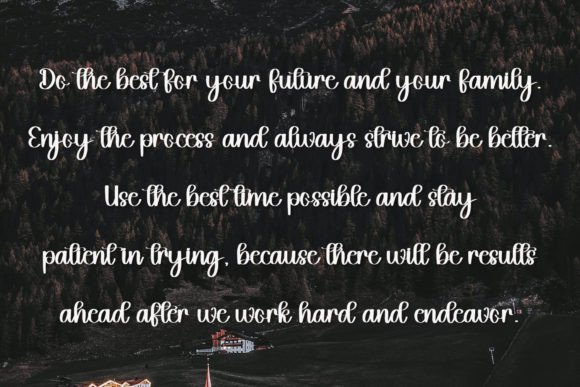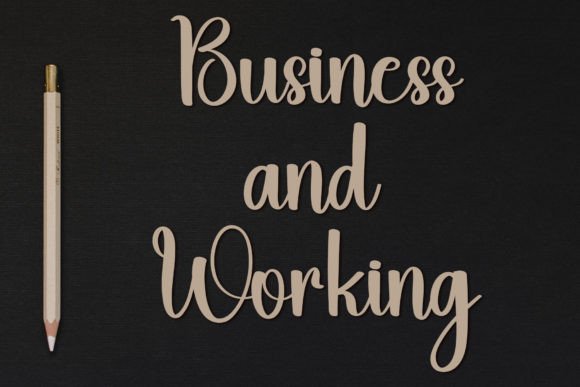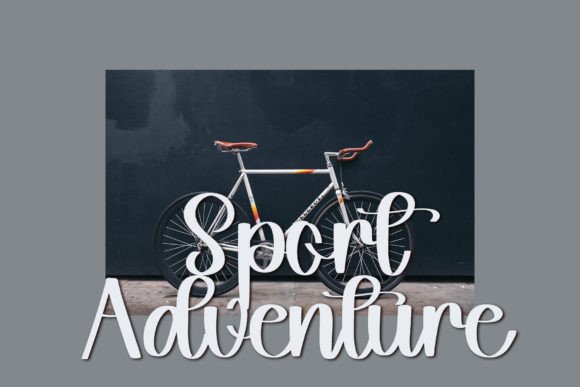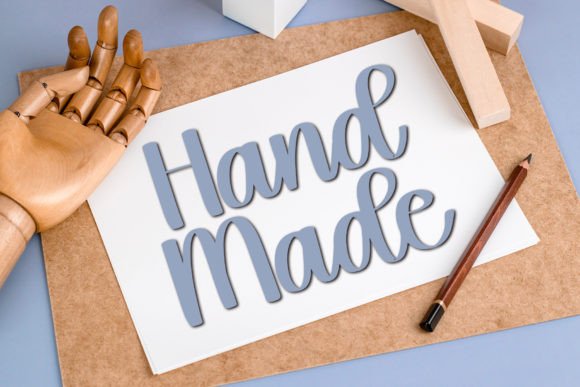
Elegant Font: Elevate Your Designs with a Touch of Sophistication
In the world of typography, fonts play a crucial role in conveying the tone and aesthetic of a design. For those seeking to add a dash of elegance and sophistication to their projects, the Elegant font is an excellent choice. This cool handwritten font boasts a modern vibe and spotless form, making it perfect for designers and crafters looking to elevate their work.
Inspired by Classic Calligraphy
The Elegant font draws inspiration from classic calligraphy, a timeless art form that exudes refinement and luxury. With its roots in traditional calligraphy, this font combines the best of both worlds – the flair of handwritten script and the precision of modern typography. The result is a font that is both beautiful and legible, making it ideal for a wide range of design applications.
Balanced and Varied
One of the standout features of the Elegant font is its balanced and varied design. Not too thin and not too thick, this font strikes the perfect balance between elegance and readability. The strokes are carefully crafted to create a sense of flow and movement, making it perfect for use in headlines, titles, and other display text. The varied letterforms also add a touch of whimsy and personality to the font, making it perfect for designs that require a bit of flair.
Modern Vibe and Spotless Form
The Elegant font has a distinctly modern vibe, making it perfect for designers and crafters who want to create fresh and contemporary designs. The spotless form of the font ensures that it looks clean and crisp, even at smaller sizes. This makes it ideal for use in body text, captions, and other applications where legibility is key.
The Elegant font is versatile and can be used in a wide range of design applications, including:
- Logos and branding: The Elegant font is perfect for creating sophisticated logos and branding materials that exude elegance and refinement.
- Wedding and event designs: The font’s classic calligraphy inspiration makes it perfect for wedding and event designs, such as invitations, programs, and signage.
- Packaging and product design: The Elegant font can add a touch of luxury and sophistication to packaging and product designs, making them stand out on store shelves.
- Digital and print media: The font’s legibility and versatility make it perfect for use in digital and print media, including magazines, newspapers, and websites.
Why Choose the Elegant Font?
So why choose the Elegant font for your next design project? Here are just a few reasons:
- Elegance and sophistication: The Elegant font exudes refinement and luxury, making it perfect for designs that require a touch of elegance.
- Legibility and versatility: The font’s balanced and varied design makes it perfect for use in a wide range of design applications.
- Modern vibe: The Elegant font has a distinctly modern vibe, making it perfect for designers and crafters who want to create fresh and contemporary designs.
In conclusion, the Elegant font is a versatile and sophisticated font that is perfect for designers and crafters looking to add a touch of elegance and refinement to their designs. With its classic calligraphy inspiration, balanced and varied design, and modern vibe, this font is sure to elevate your projects and make them stand out. So why not give the Elegant font a try and see the difference it can make in your designs?